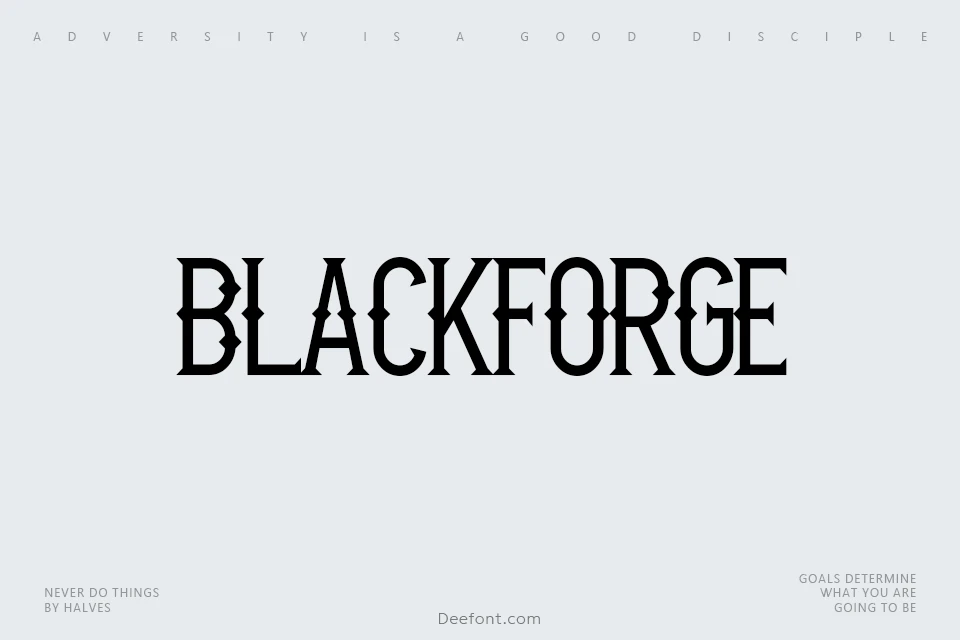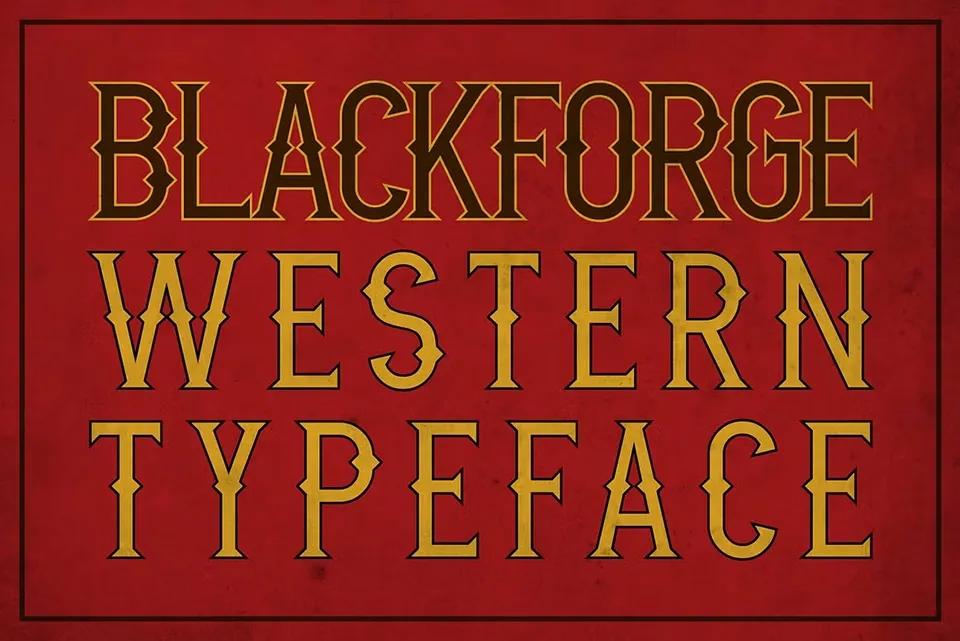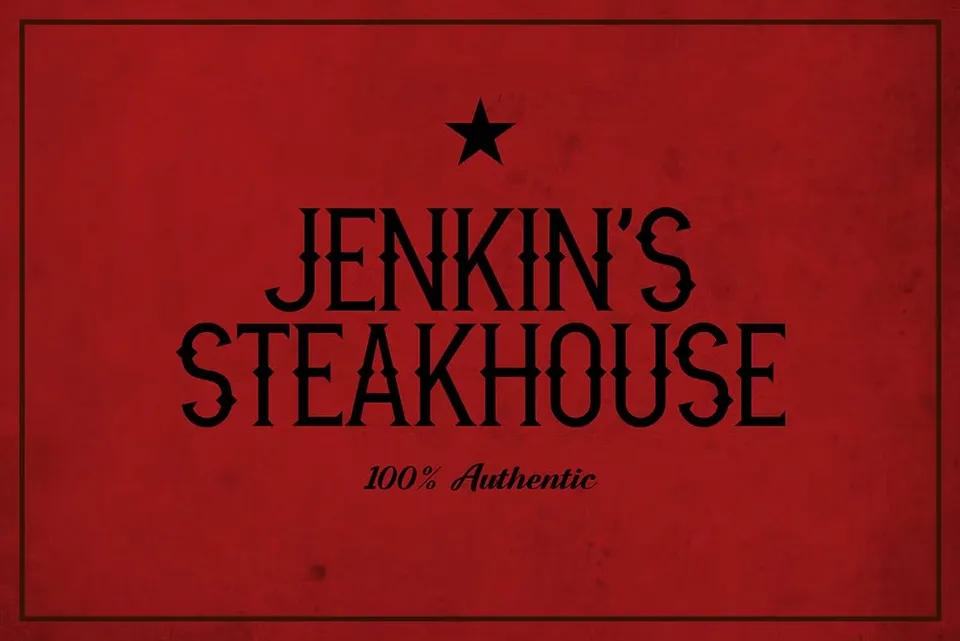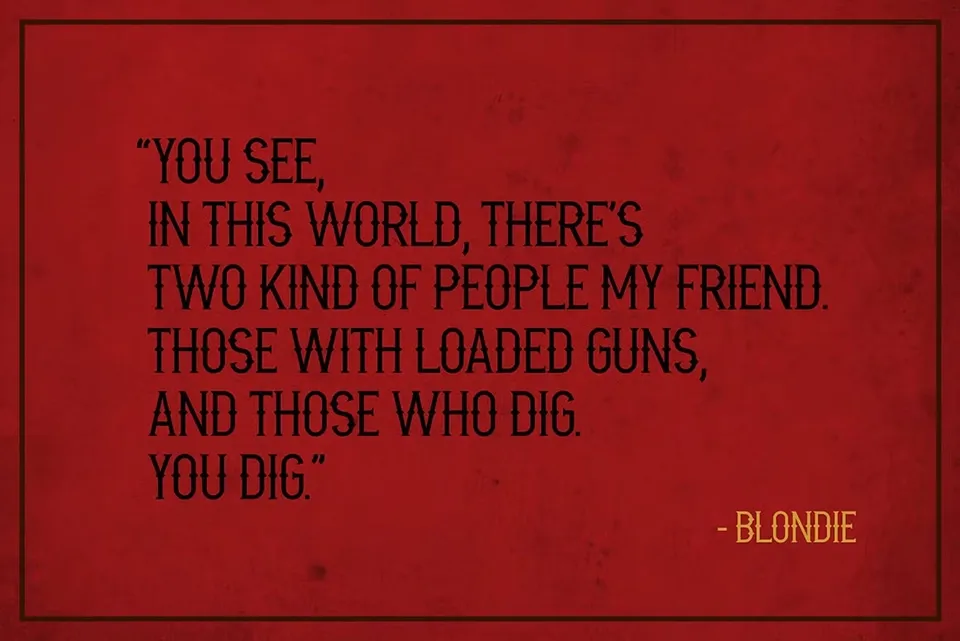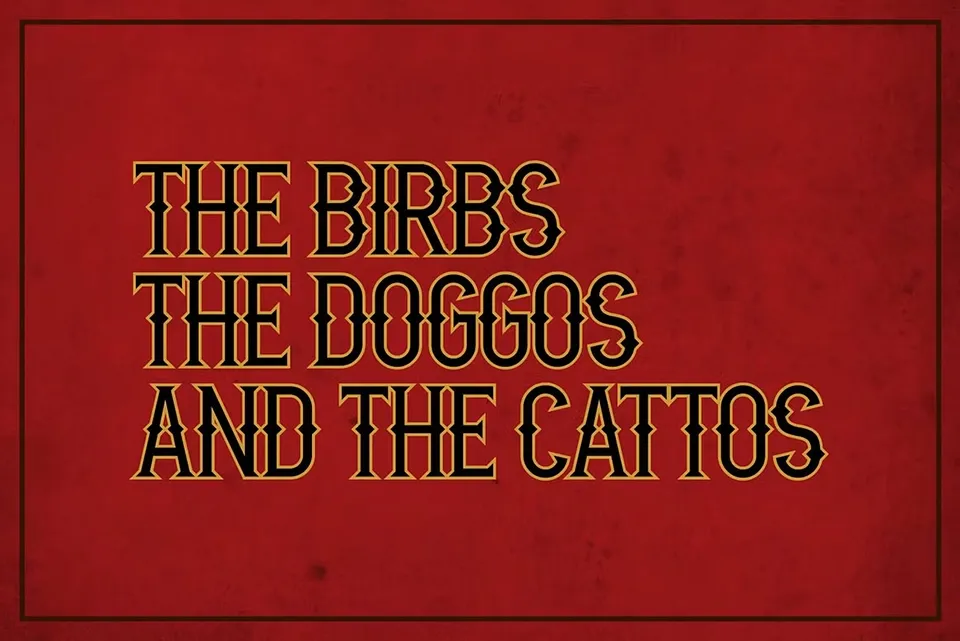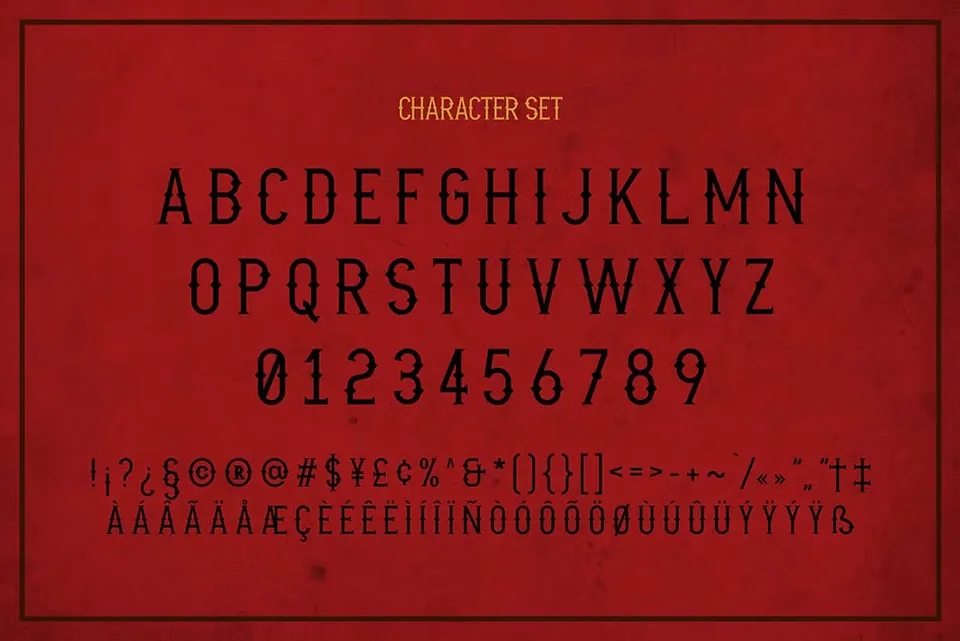
Blackforge Font
Blackforge Font is a bold, strong-lettered serif font with authentic Western charm. Its decorative and modern style makes it a versatile choice for a wide range of creative projects, from posters to branding, giving your designs a distinctive and powerful presence.